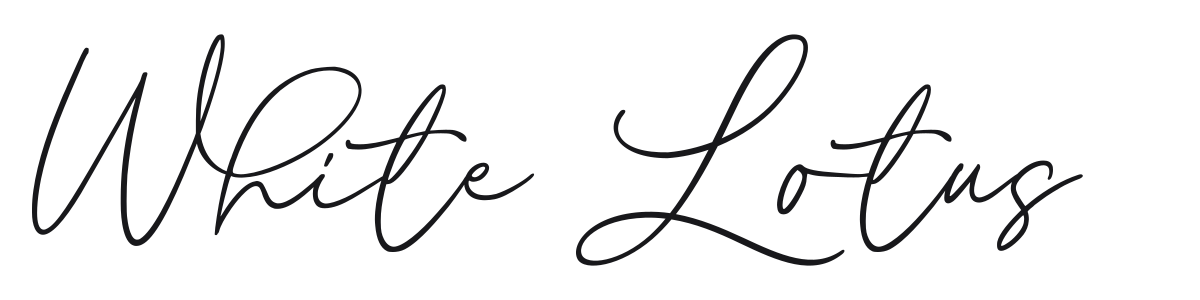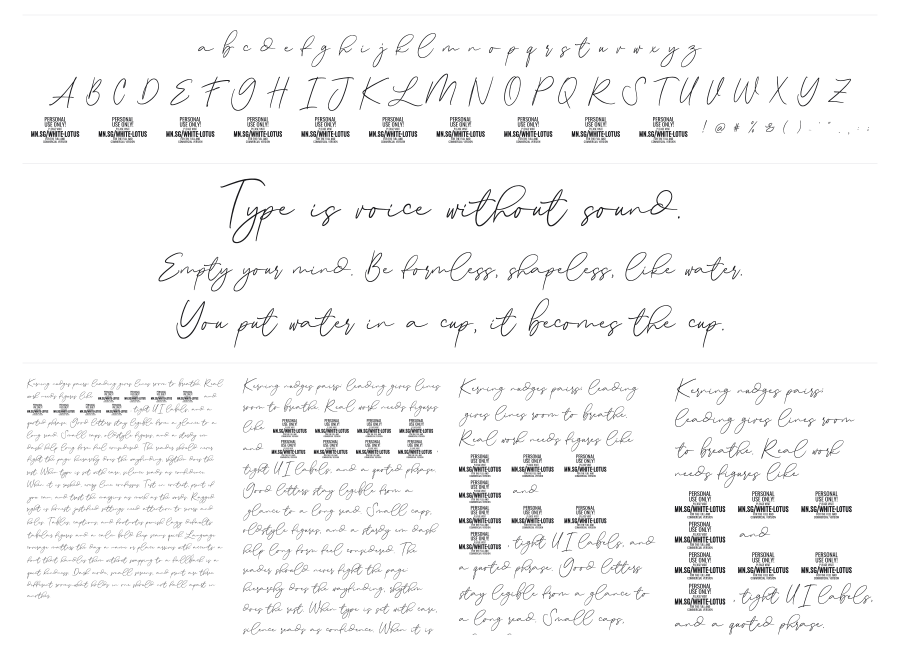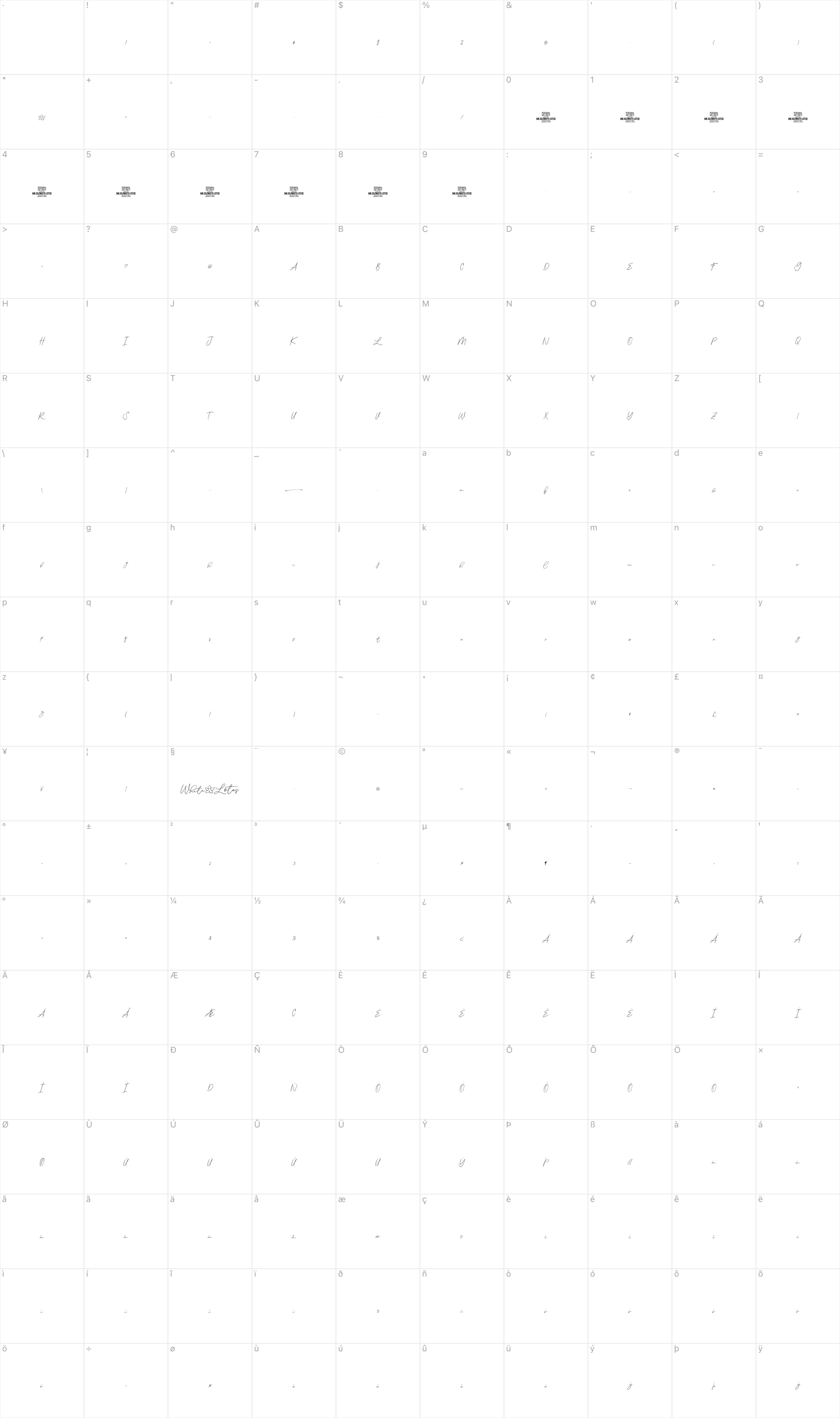
White Lotus
White Lotus is a thin, wildly flowing handwriting script with sweeping strokes and an effortlessly loose quality. Long looping ascenders and descenders weave through one another, giving it an expressive, almost untamed energy that still reads as elegant. It includes OpenType alternates, ligatures, and special underscore swashes and asterisk floral ornaments for extra customization.